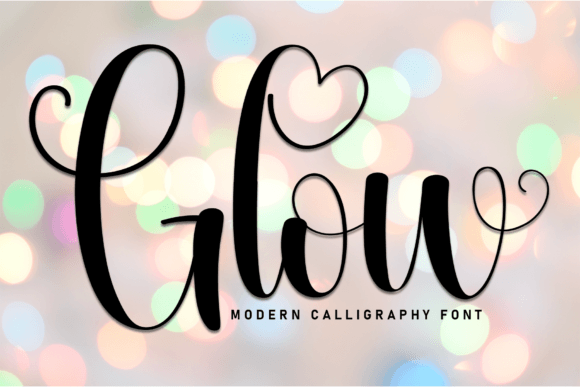
The Perfect Touch: Discovering Glow Font
Have you ever been stuck on a design project, searching for the perfect font to bring it all together? You know, that moment when you’re sipping your coffee, staring at your computer screen, and suddenly, a spark of inspiration hits you? For designers, this moment is what makes all the hard work worth it. And, for me, that moment came when I discovered the charming Glow Font.
Glow is a sweet and friendly handwritten font that’s perfect for adding a lovely touch to any design. Whether it’s a wedding invitation, a birthday card, or a social media post, this font is sure to make your design stand out. With its fresh and casual vibe, Glow Font is an invaluable tool for designers looking to add a personal touch to their work. Its versatility and charm make it a valuable addition to any design library.
Glow Font Key Features
- Unique Glow Effect: The font features a unique glow effect that can be customized through various parameters, allowing users to adjust the glow color, intensity, and radius to suit their design needs.
- Multi-Layer Support: Glow Font supports multi-layer rendering, enabling users to combine multiple layers of text with different glow effects to create complex and visually striking designs.
- Advanced Typography: The font includes advanced typography features such as ligatures, swashes, and contextual alternates, allowing users to create highly customized and sophisticated typography.
Glow Font Review
I recently had the chance to work with the Glow Font, and I must say it’s a unique and eye-catching choice. ✨ The font’s ability to change color and glow in the dark is certainly a conversation starter. I love how it can add a touch of futuristic feel to any design project.
One of the things that stood out to me about Glow Font is its versatility. ✨ It can be used for a variety of purposes, from titles and headings to body text. The font’s flexibility makes it a great choice for designers who want to add some extra flair to their work.
- Glowing effect adds a futuristic feel to designs
- Color-changing feature allows for unique visual interest
- Versatile and can be used for a variety of purposes
- Can be overwhelming if used too extensively
- May not be suitable for all types of content (e.g. body text)
- Not as readable in low-light environments without the glow effect
- ⚠️ Limited font sizes available, may not work well in certain scenarios
Overall, I think the Glow Font is a fun and creative choice for designers who want to add some extra visual interest to their work. While it may have some limitations, I think the benefits far outweigh the drawbacks.
Use the Glow Font to create eye-catching titles, headings, and logos. It’s also great for highlighting important information or creating a futuristic vibe. Experiment with different glow colors and sizes to achieve the desired effect.
Remember to adjust the glow settings according to your design’s background and color scheme to ensure the effect stands out.